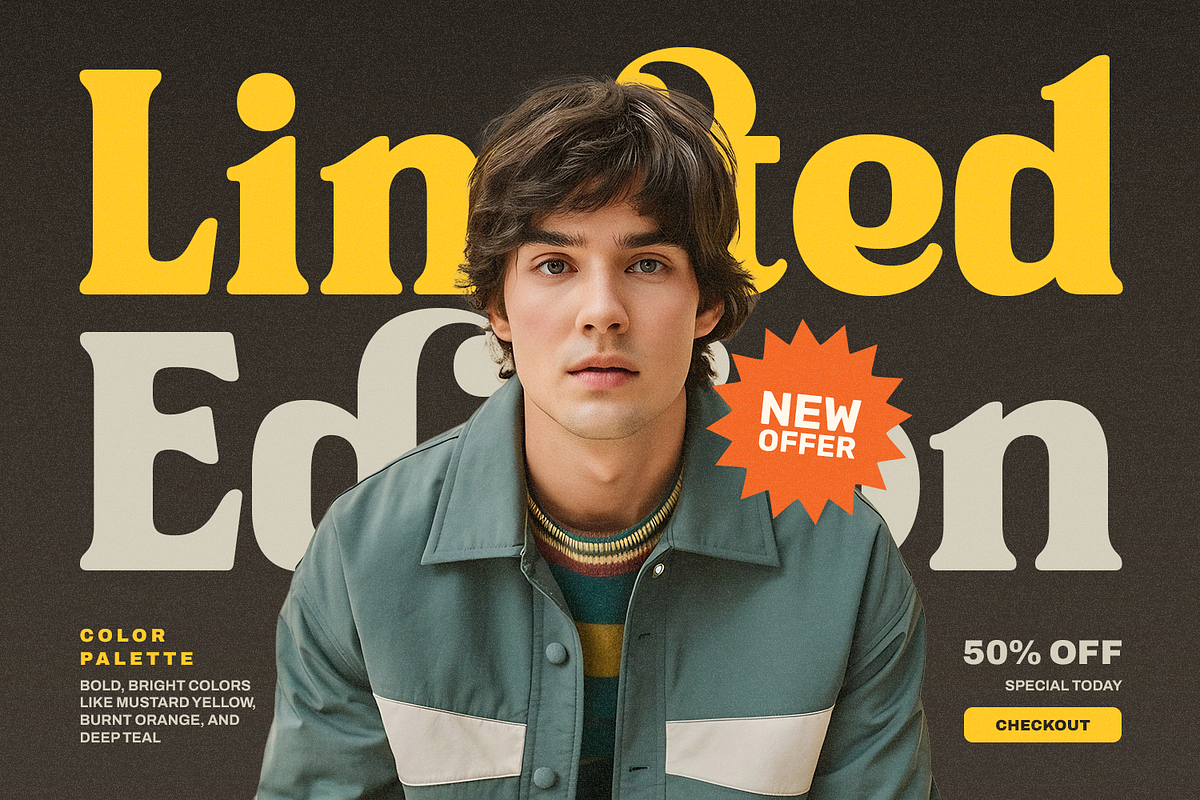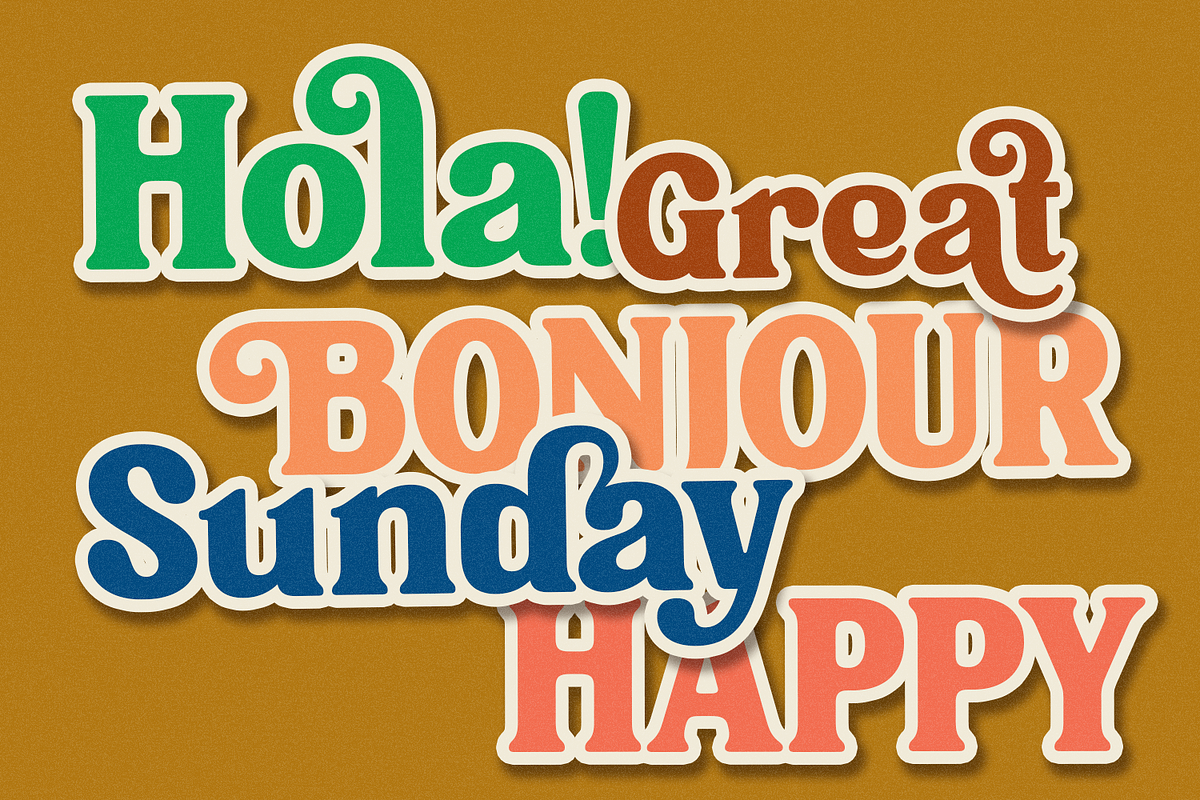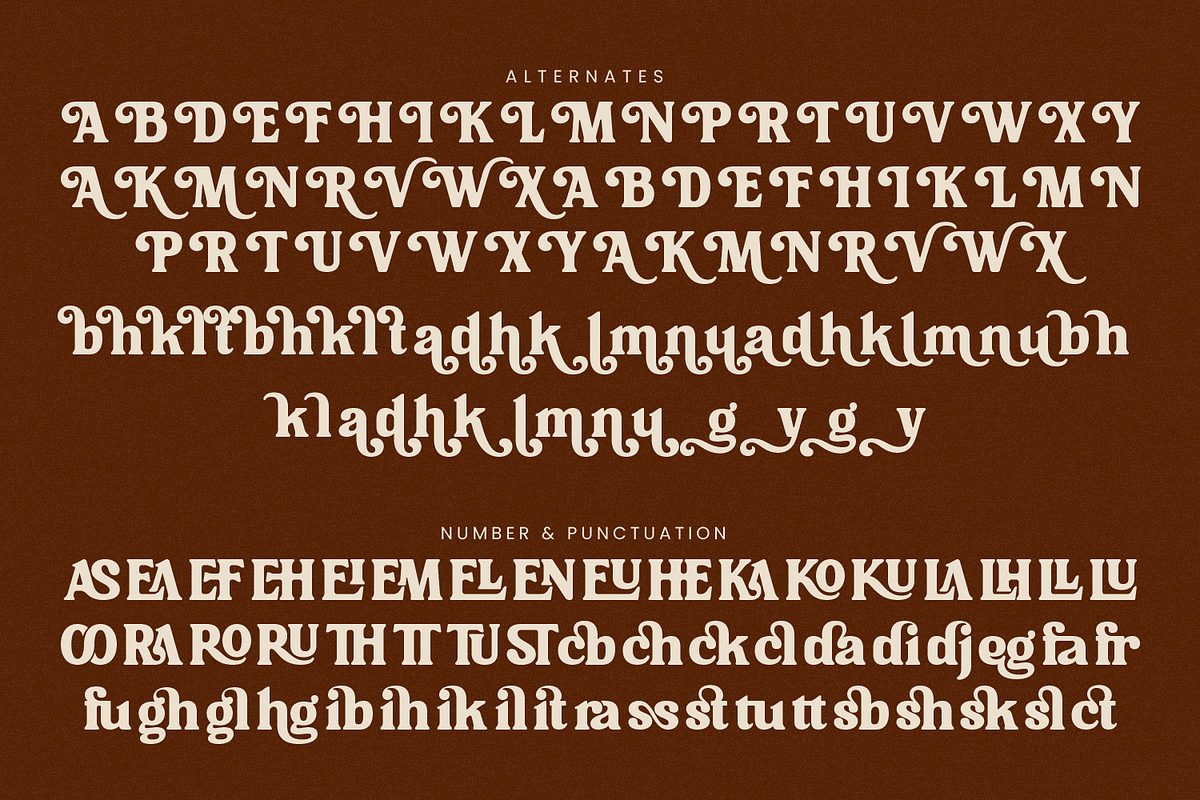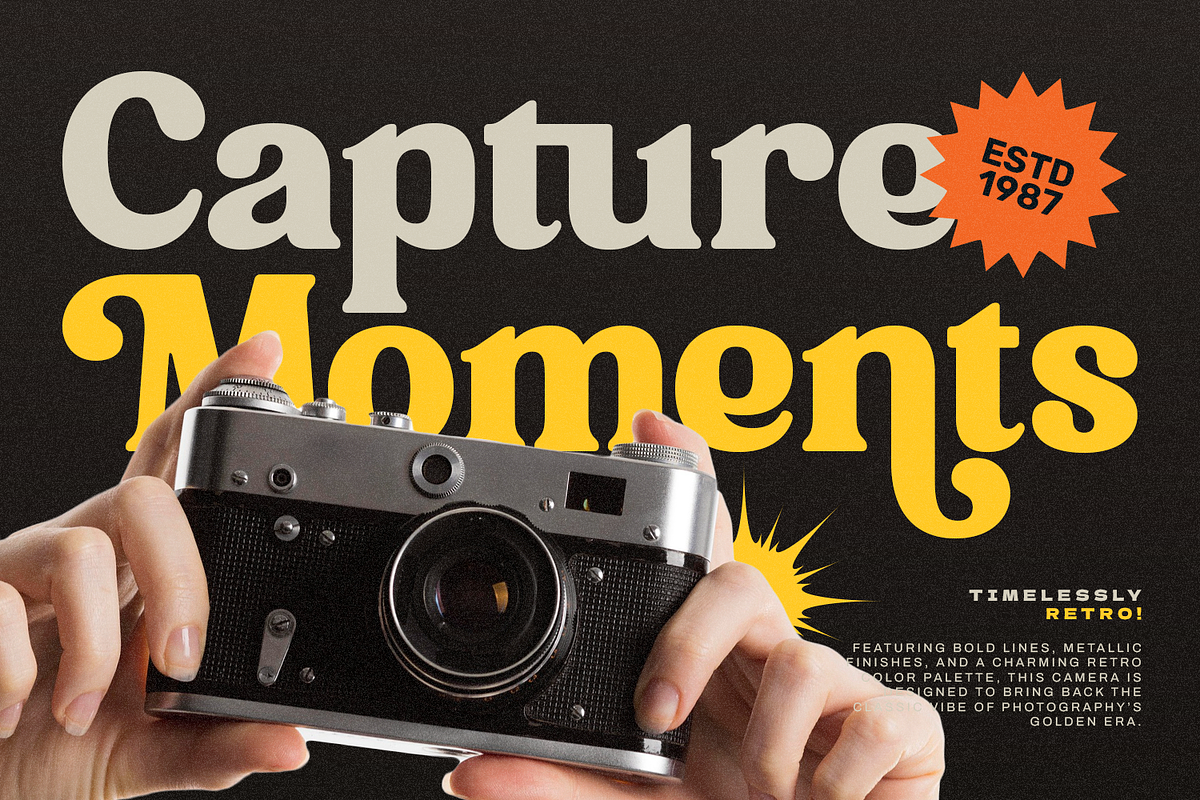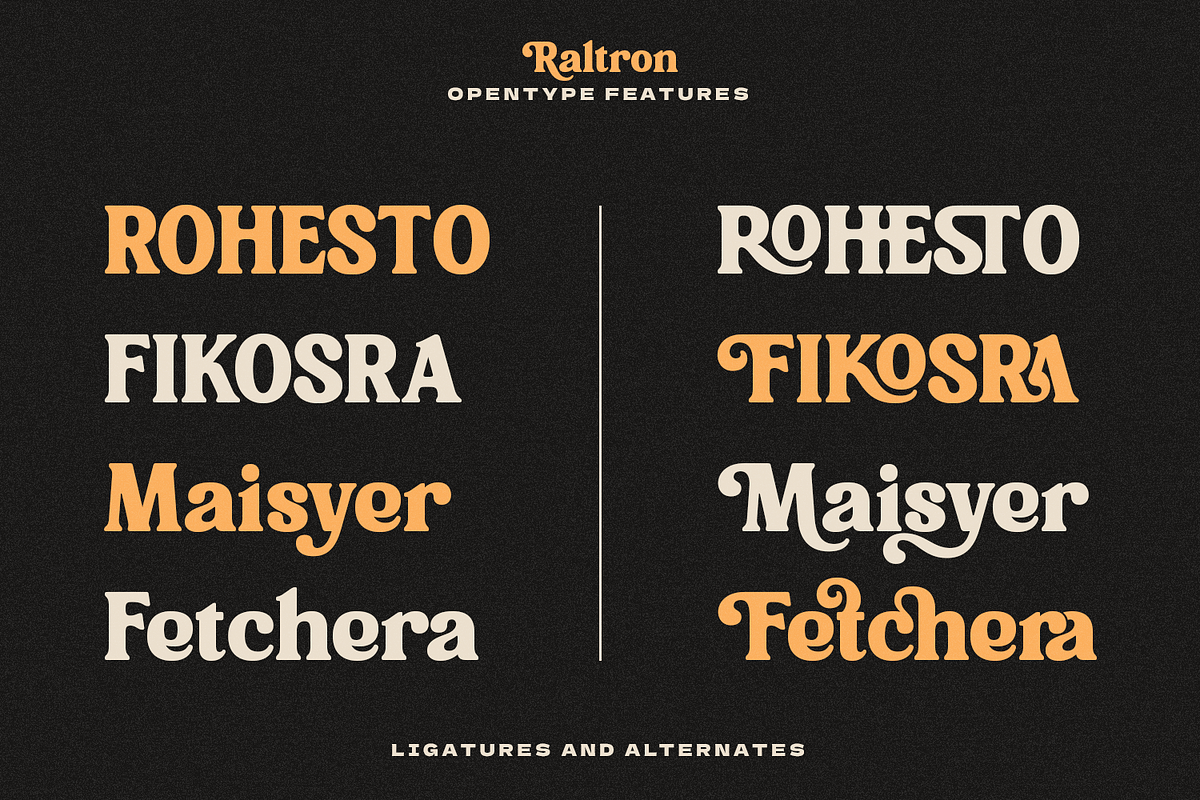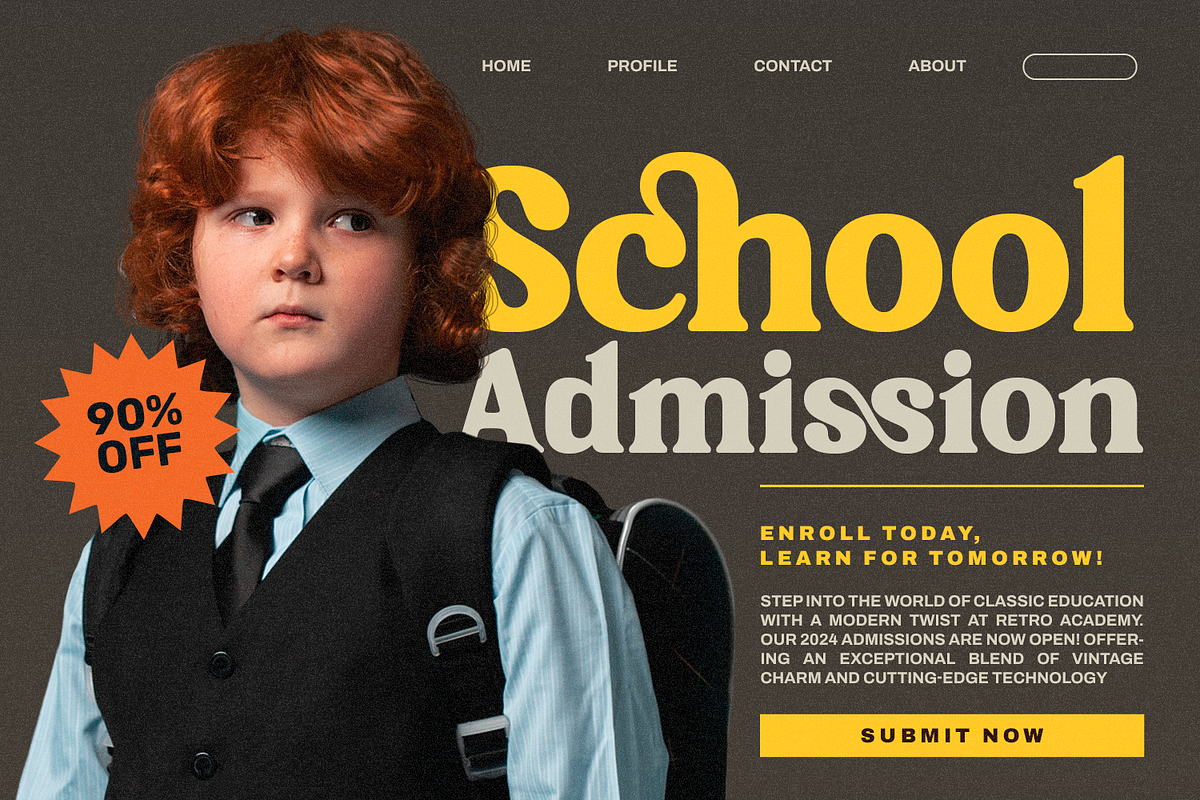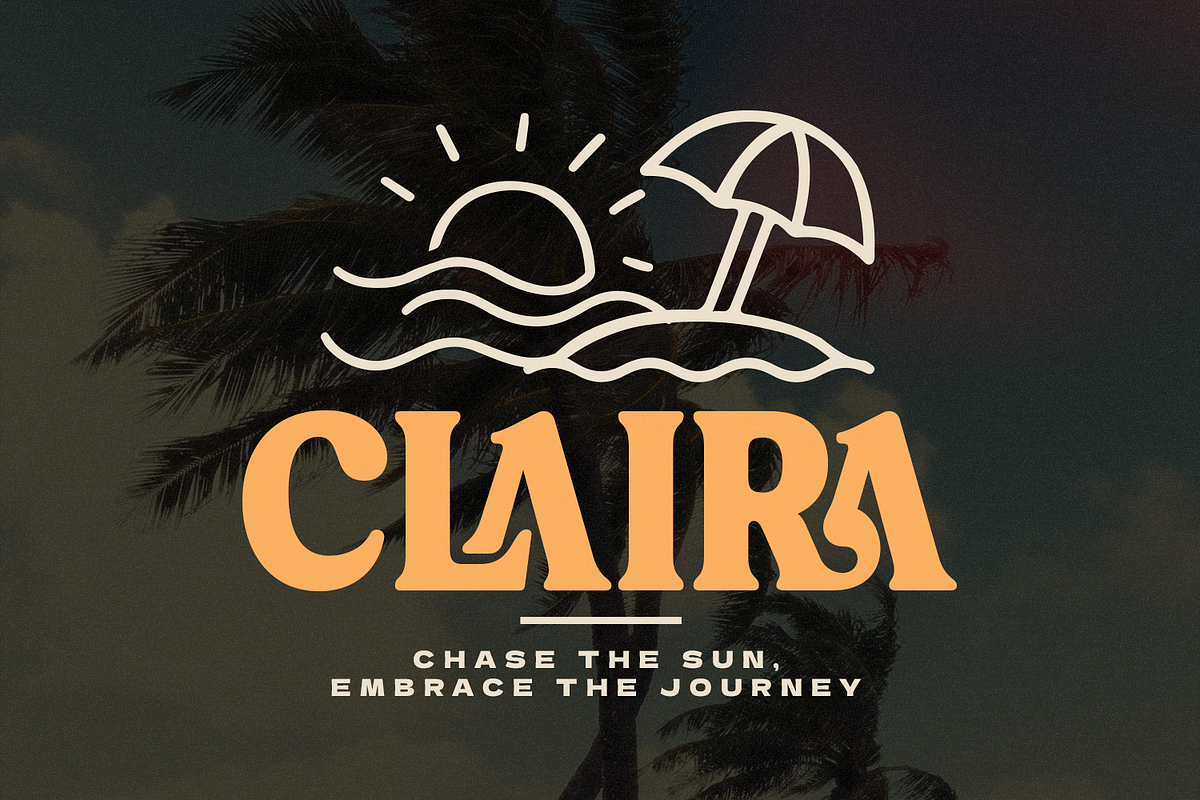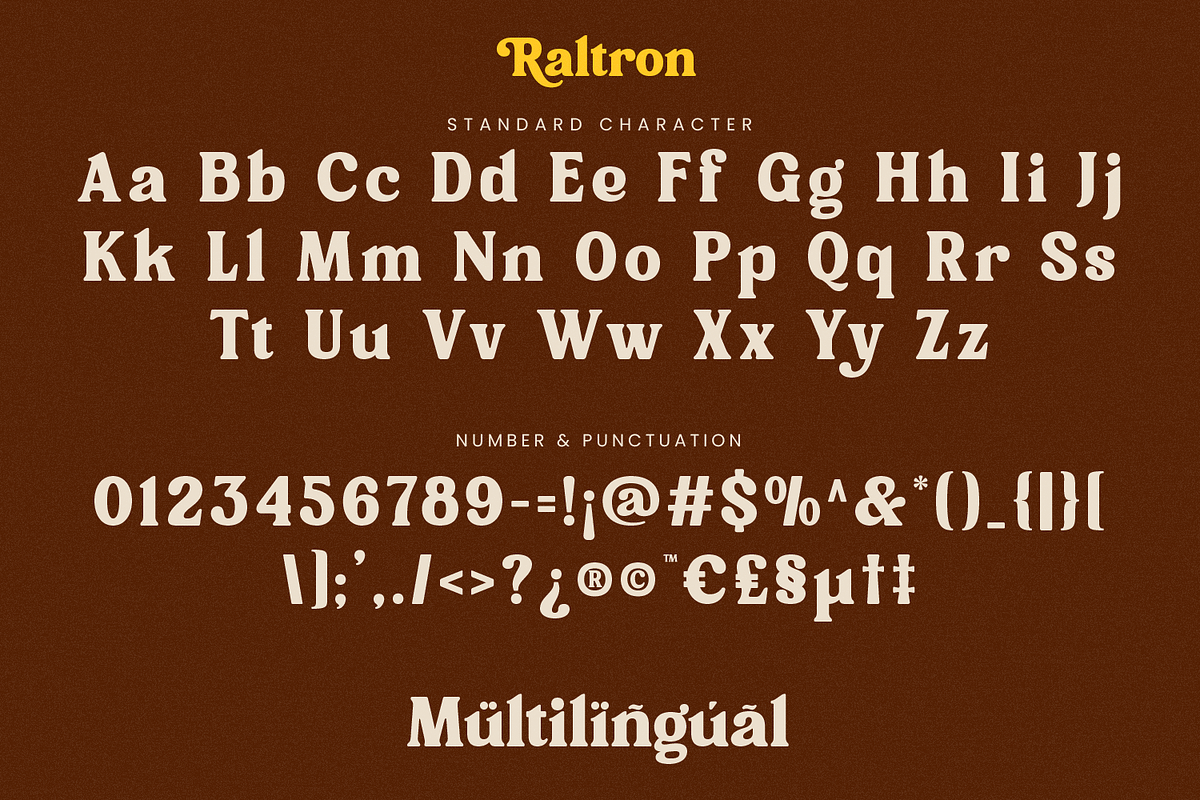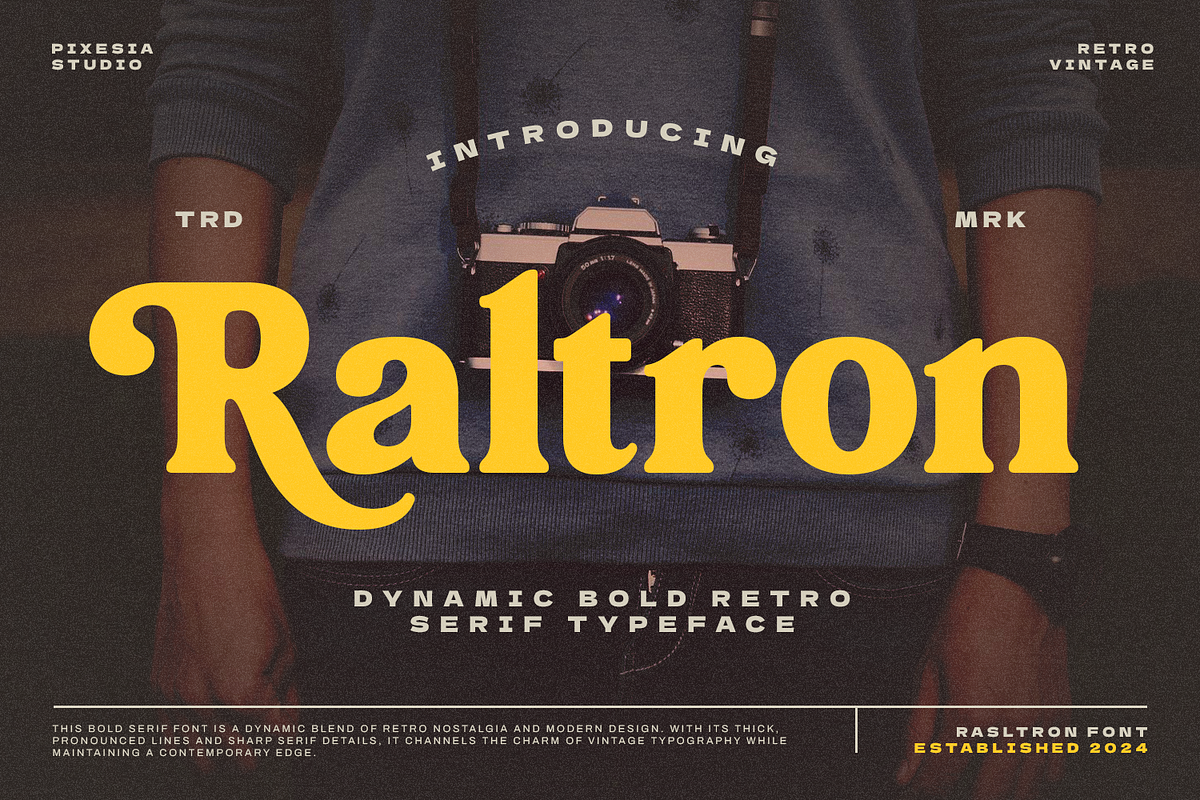
Raltron - Retro Vintage Serif Font
Introducing Raltron - Retro Vintage Serif Font
Raltron is a retro vintage display font that captures the essence of classic design from the past. With its distinctive letter shapes, bold strokes, and playful curves, it embodies the charm and character of bygone eras.
Raltron is perfectly suited for retro branding, posters, vintage advertisements, social media, logotype, social media posts, headlines, logo, greating card, advertising, product packaging, label, photography, watermark, t-shirt, website design, invitation, stationery and any projects seekinga fun, vintage touch.
- Multilingual Support including Afrikaans, Albanian, Basque, Catalan, Danish, Dutch, English, Estonian, Faroese, Filipino, Finnish, French, Galician, German, Icelandic, Indonesian, Irish, Italian, Malay, Norwegian Bokmål, Portuguese, Spanish, Swahili, Swedish, Zulu